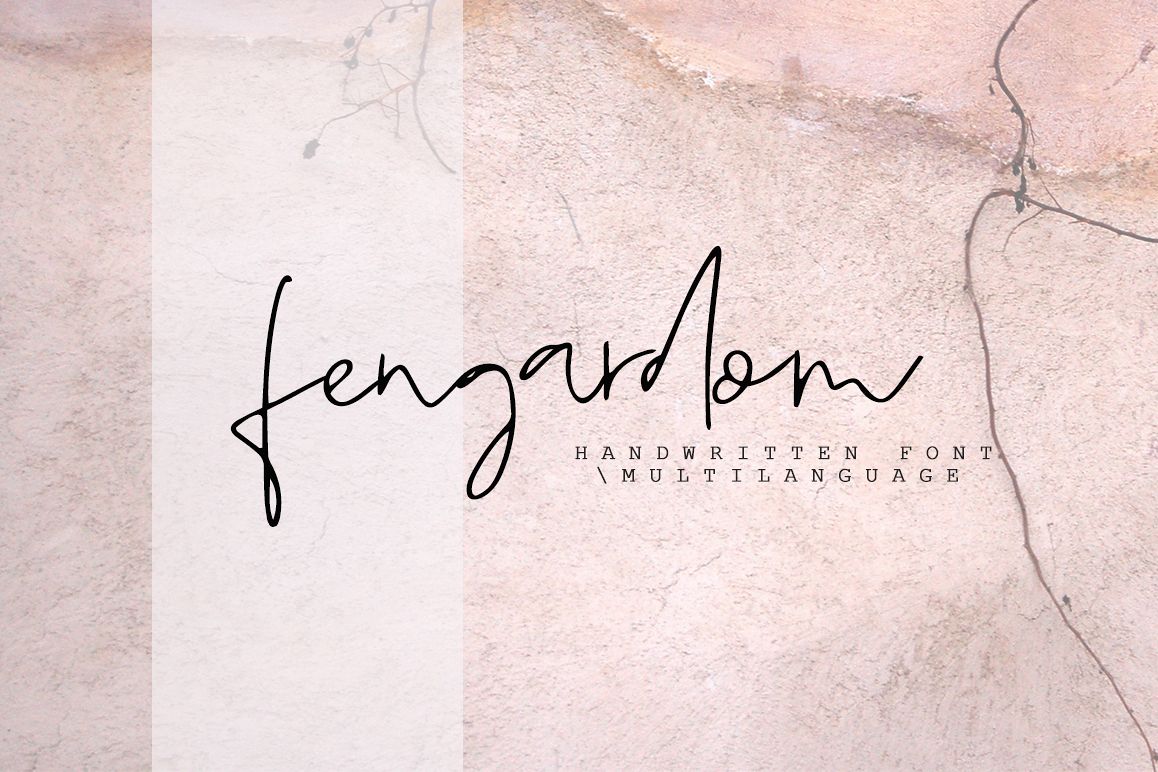
Fergandom
Introducing Fengardom Handwritten casual font with multilingual.
Fengardom is modern font, every single letters have been carefully crafted to make your text looks beautiful. With modern script style this font will perfect for many different project ex: logo, photography, watermark, quotes, blog header, poster, wedding, branding, logo, fashion, apparel, letter, invitation, stationery, etc.
Fengardom also includes Regular and Bold, full set of uppercase and lowercase letters, multilingual symbols, numerals, punctuation.
- UpperCase & Lowercase
- Numerals & Punctuations
- Multilingual characters (AÀÁÂÃÄÅCÇDÐEÈÉÊËIÌÍÎÏNÑOØÒÓÔÕÖUÙÜÚÛWYÝŸ?ŸÆŒßÞàáâãäåæçèéêëìíîïðñòóôõöøùúûüýÿ)